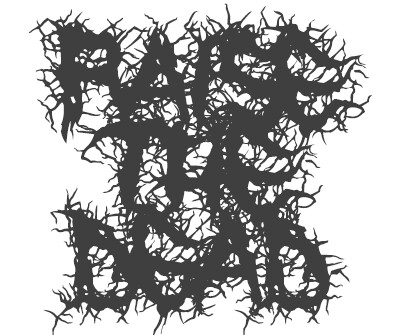
Raise The Dead is a font that embodies the darkness and intensity of death metal. Its letters are designed to be jagged and aggressive, creating an overall look that is both chaotic and powerful. The letterforms are intentionally distorted and disjointed, making them difficult to read, which contributes to the font's raw, rebellious style. This makes Raise The Dead a great choice for death metal album covers, concert posters, or other designs that need to convey a sense of chaos and destruction. Despite its rough and hard-to-read appearance, Raise The Dead still manages to maintain a level of legibility, making it a versatile choice for any death metal-themed project. If you're looking for a font that captures the essence of death metal and the rebellion of the genre, Raise The Dead is the perfect choice.
Uppercase: Yes
Lowercase: Same as uppercase
Numbers: No
Symbols and Punctuation: Very limited, view character map in image gallery
Accents: No
Theme: Death metal, grindcore, horror, handwritten